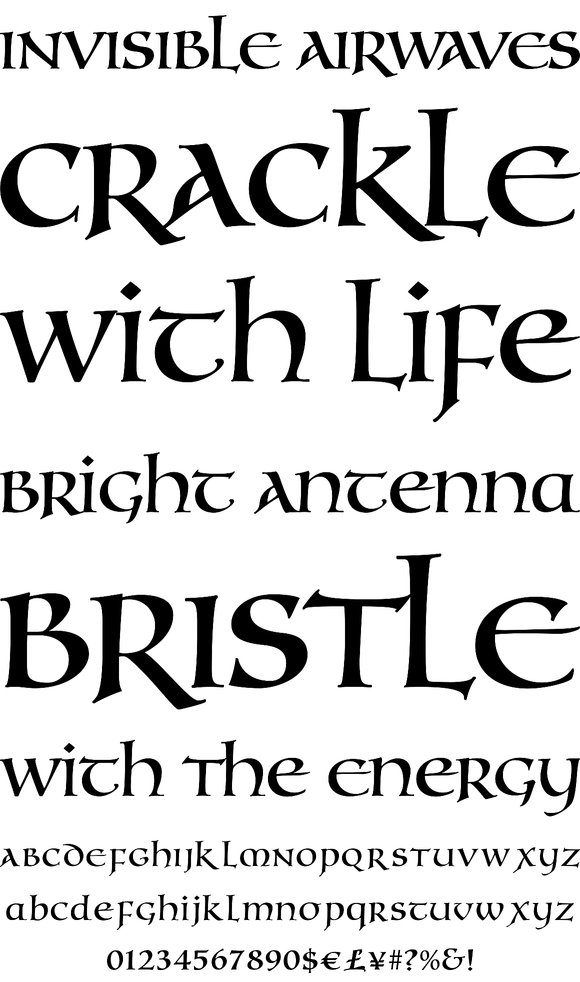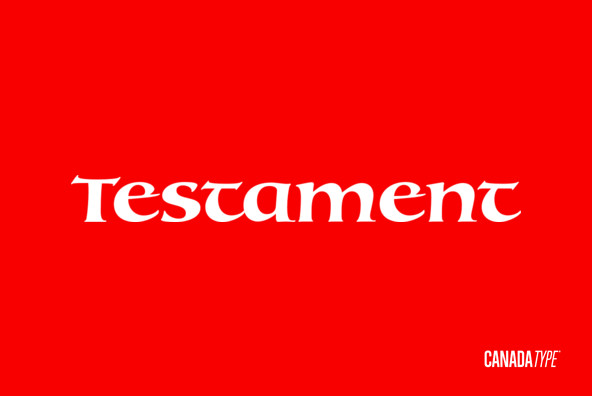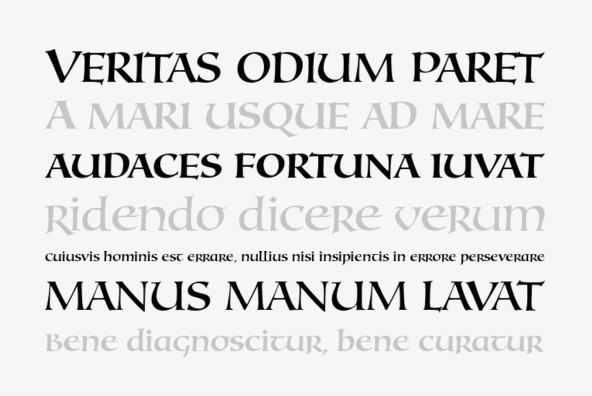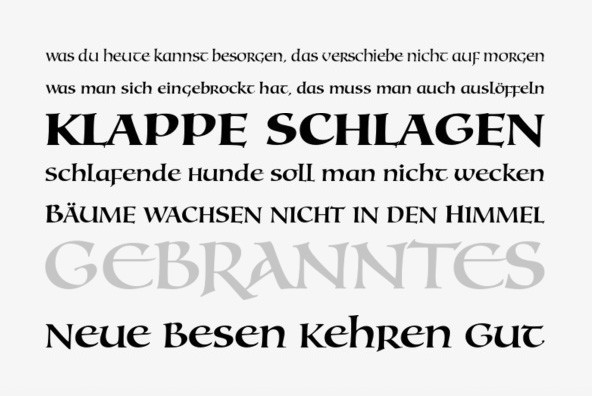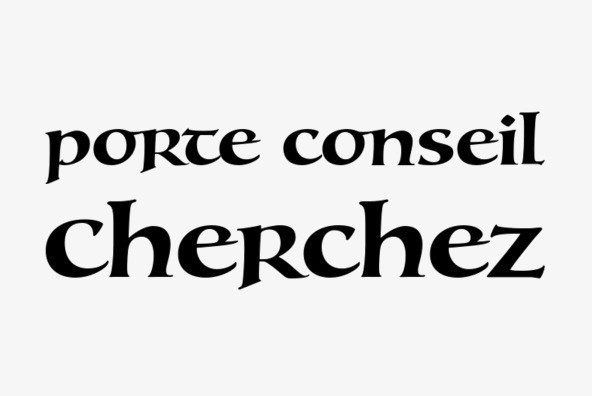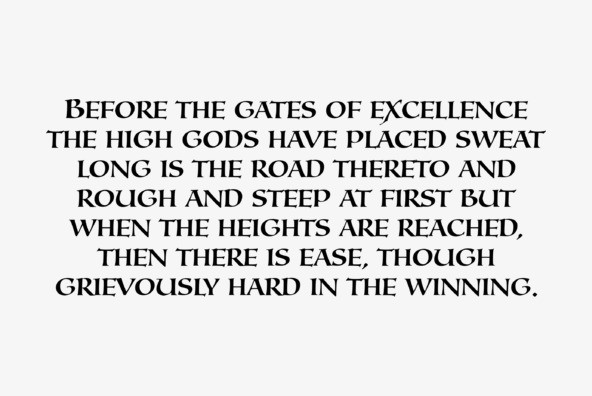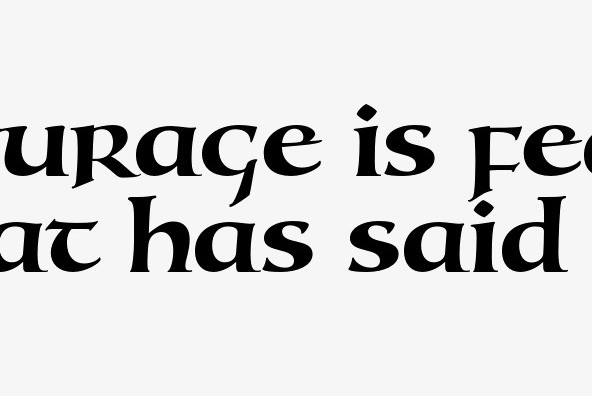
Testament
From the standpoint of calligraphy, a font family of capitals and uncials makes perfect sense. The Roman square capitals, the quadrata, are matched by round capitals of older Greek origin; the word "uncus" means hook-shaped like a beak or talon. Interrelated and often interchangeable, these capital letters served as book hands for both the Latin West and the Greek-speaking East before they evolved into minuscule alphabets. The Testament family is based on the few formal capital manuscripts of the Bible, Virgil and Homer that have survived from the ancient world. Throughout the Middle Ages both uncials and square capitals were used, often together, for headings and initial characters. By their nature the Roman capitals are the voice of Caesar and hold the place of authority, while the uncials speak for the Church in a balanced relationship. In ancient times church and state were not as separate as they are now, and the alphabets were not as different as typographic tradition has made them. In this calligraphic rendering it is clear that they are of the same substance and can be written in the same style, conveying even to the modern eye the eternal and classical quality of epic and scripture.